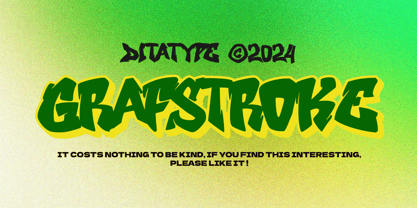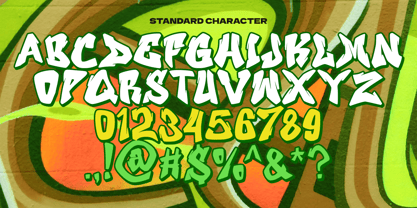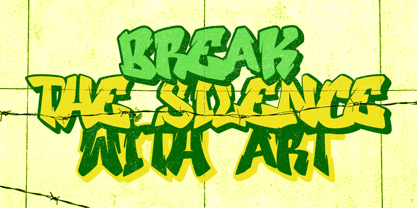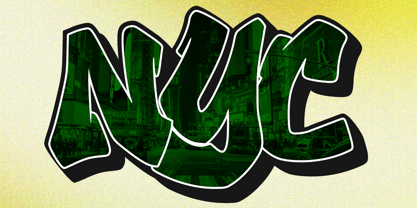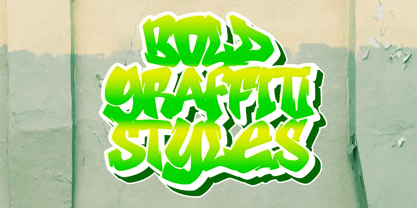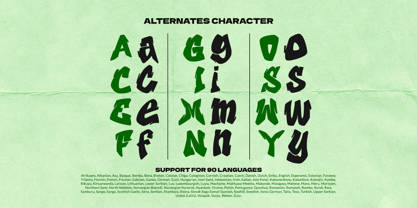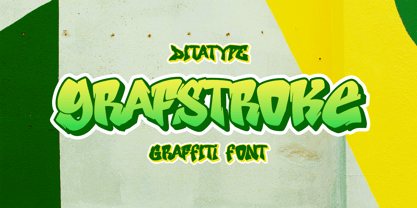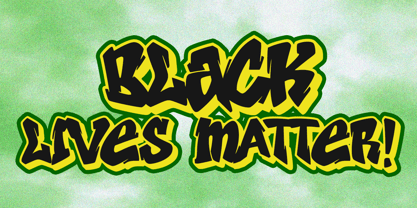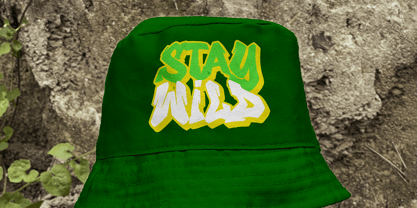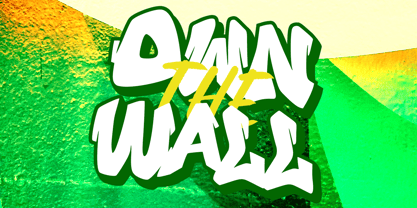
Grafstroke
by Ditatype
The Grafstroke Font Family was designed by Donis Miftahudin and published by Ditatype. Grafstroke contains 2 styles and family package options. More about this family
Grafstroke is a bold graffiti font that embodies the raw energy of street art. Designed in all uppercase for maximum impact, this font shows consistent letterforms with sharp, angular corners that exude strength and edge. The shadow style adds depth and dimension, making your designs pop with a dynamic, three-dimensional effect. Grafstroke brings a modern, daring vibe to any creative endeavor, capturing the essence of graffiti with precision and style. In addition, enjoy the features here.
Graftroke fits in logos, posters, branding materials, print media, and many more designs. Find out more ways to use this font by taking a look at the font preview.